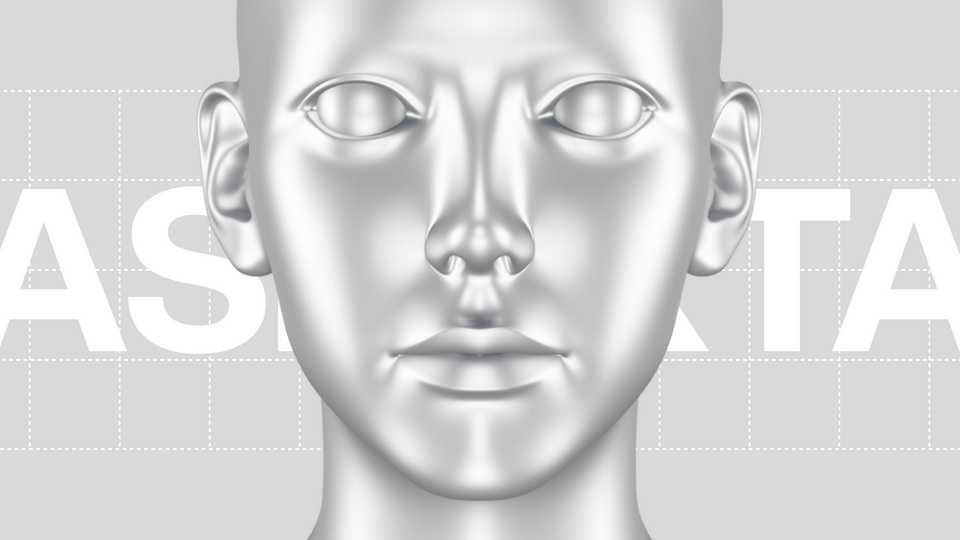
Download Aspekta font, a modern sans serif typeface inspired by a clean, simple and neutral style. Aspekta font family provides a wide range of weights and stylistic alternatives that can be mixed to create strong branding.
Designer: Ivo Dolenc